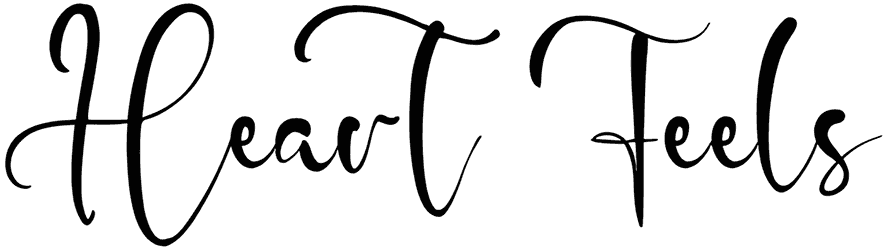
Heart Feels Font
Success comes to those who never hesitate in selecting a marvelous script font the such as Heart Feels, which comes with a cursive style. Due to its rounded form, reading some of its characters would be a little bit difficult.
Since this calligraphy font carries a sense of delicacy, dynamism, personalization, and viability, it can be perfectly matched with a huge set of graphic content, such as book covers, magazines, branding, packaging, or gift cards.